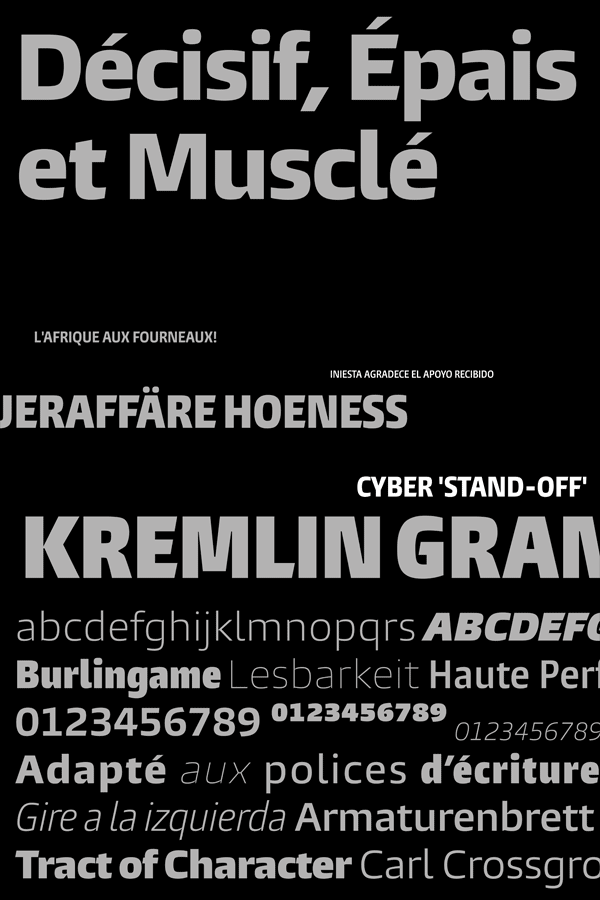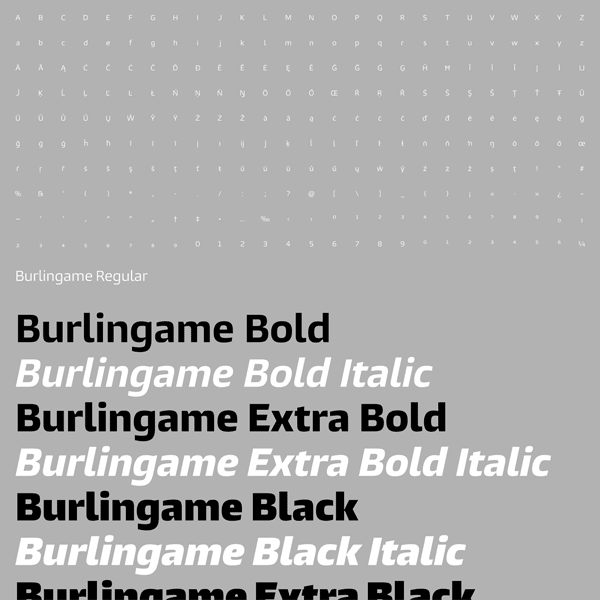
Burlingame, A Sturdy Typeface.
The Burlingame font family was designed by Carl Crossgrove in 2014 (Font Publisher: Monotype). Its typeface offers a sturdy design with clear shapes. Burlingame is easy to read, even in constrained digital settings or in challenging print environments. It’s indeed a font family for multi-purpose. Different OpenType features and multiple language support provide diverse typographical options. Burlingame’s modern typeface design is a worthy representative of the Monotype font collection.